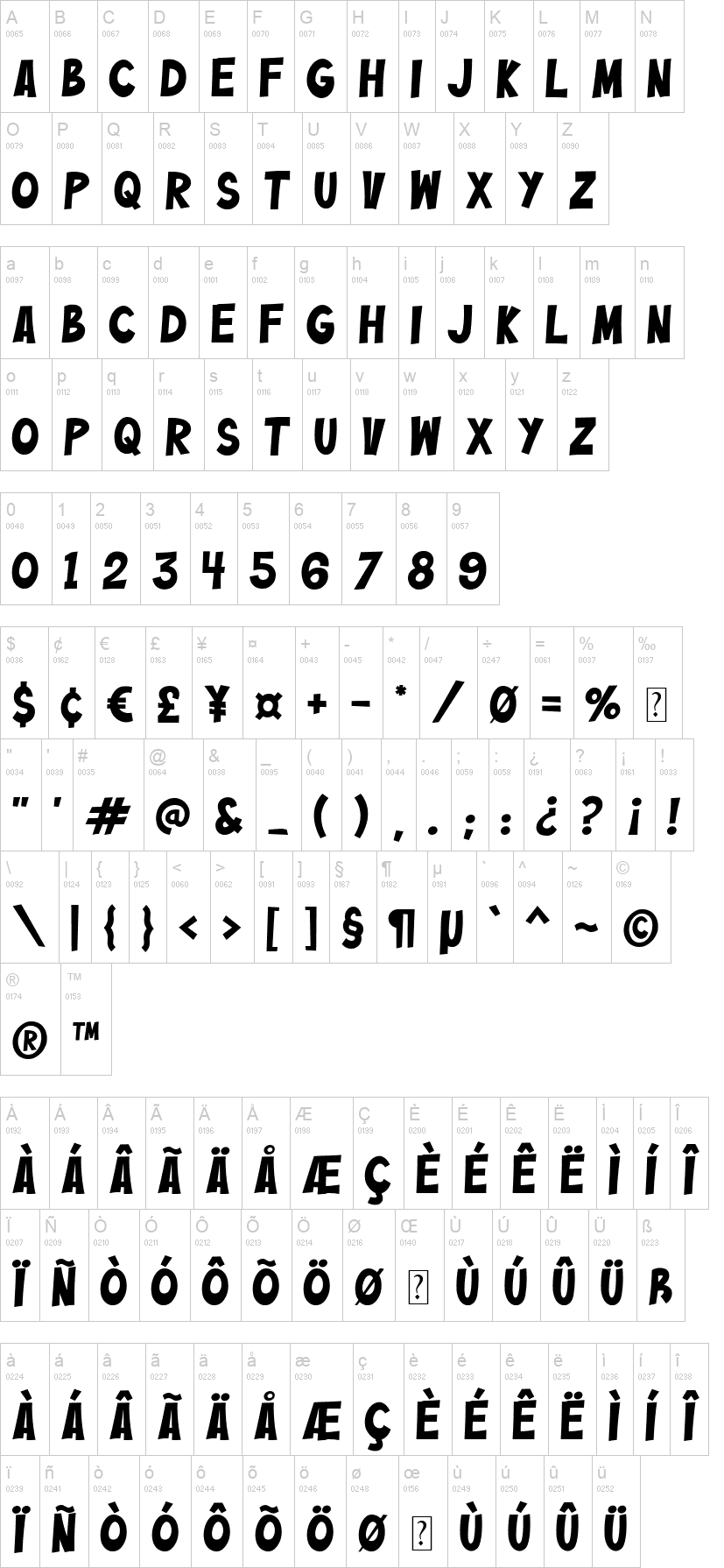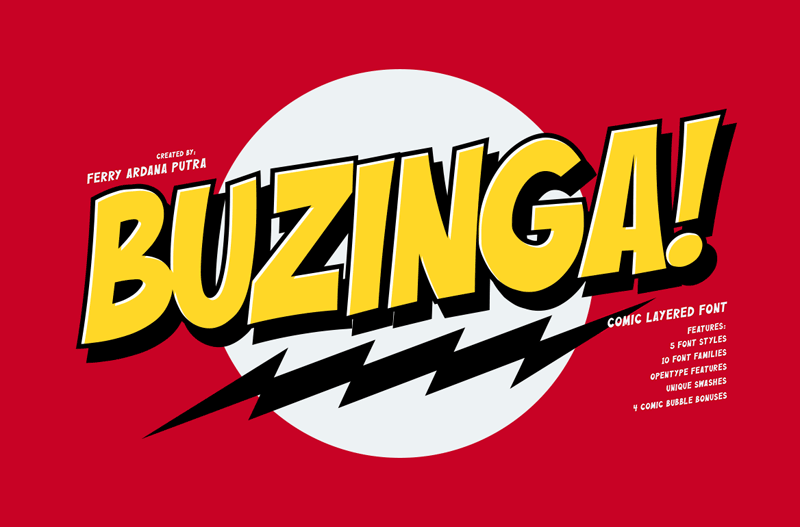
Buzinga! is a fabulous new layered comic book style font that is inspired by Sheldon favorite jokes word - Bazinga! You can combined this font with any layered style which included in this font family. This font is Perfect for adding a comical feel to your designs, whether it is comical quotes, label, logotype poster and many more!
Buzinga! features:
A full set of uppercase characters
Numbers & punctuation
Multilingual language support
PUA Encoded Characters
275 Total glyphs
Layered Style